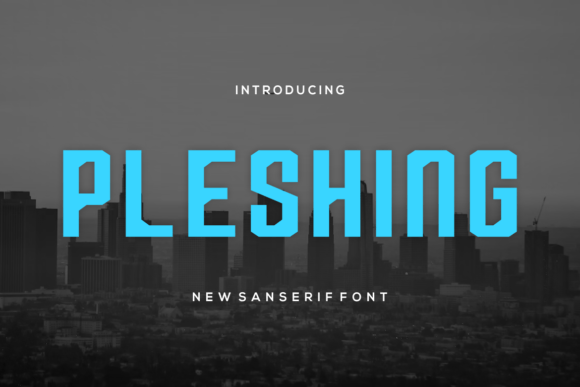
Experience the grandeur of typography with Pleshing Font, a modern and bold display typeface that exudes authenticity and strength. Each letter is meticulously crafted with clean lines and powerful curves, leaving an unforgettable impact that commands attention. Dive into a world of creative possibilities with Pleshing Font, the ultimate choice for branding, advertising, and design projects that demand a bold and memorable presence.
With Pleshing Font, your words take center stage, capturing the essence of your message with unwavering boldness. Its remarkable design elevates your designs to new heights, making every word a statement of power and confidence. Unleash your creativity and let Pleshing Font amplify your ideas, leaving a lasting impression on your audience.
Harness the versatility of Pleshing Font and explore boundless opportunities for expression. Whether it's captivating posters, impactful logos, or striking headlines, Pleshing Font effortlessly adapts to your vision, bringing your creative concepts to life with stunning clarity. Its sans serif design adds a touch of modernity and sophistication, ensuring your designs stand out from the ordinary.
Embark on a typographic adventure with Pleshing Font, the font that fuels your imagination and ignites your creativity. Its boldness and authenticity resonate with your audience, creating an emotional connection that goes beyond words. Experience the transformative power of Pleshing Font and elevate your designs to new heights.